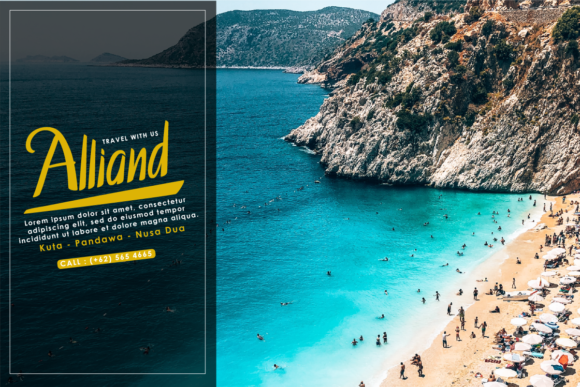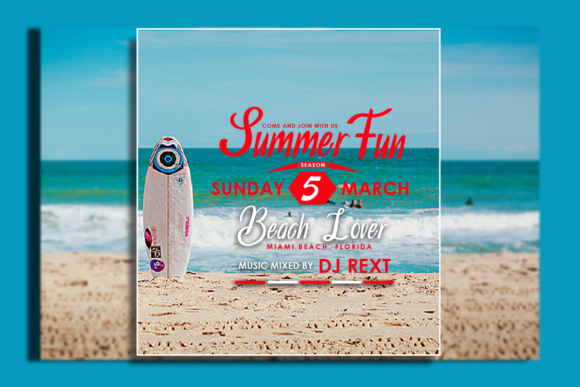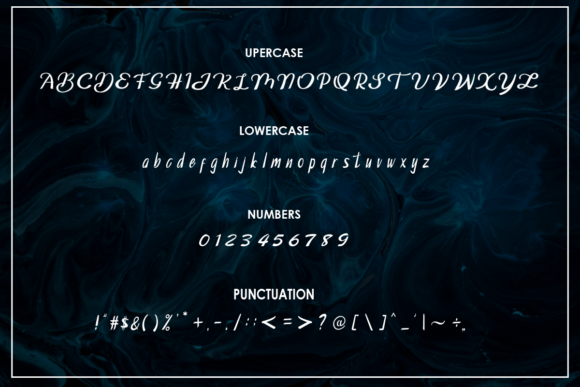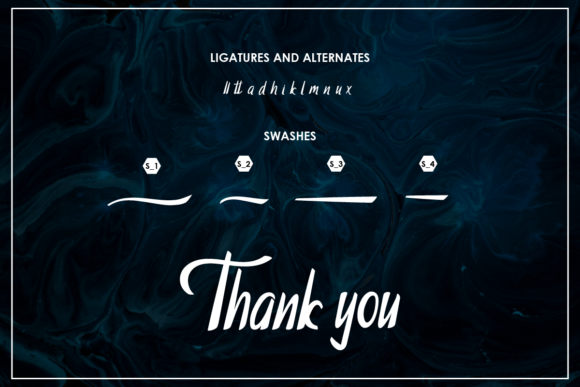
The Designer’s Delight: Galline Font
I still remember the time I was working on a wedding invitation project, and my client asked for a font that was both elegant and playful. I scoured the internet, tried countless fonts, but nothing seemed quite right. That was until I stumbled upon Galline Font. It was love at first sight! 💕
Galline is a soft, flowing, and trendy handwritten font that has become a staple in my design toolkit. It looks stunning on posters, wedding invitations, thank you cards, quotes, greeting cards, logos, and so much more. In this article, I’ll share my experience with Galline Font, its features, and how to make the most of it in your designs.
- ✨ Soft and flowing strokes that give it a personal touch
- 💃 Perfect for creative projects that require a touch of elegance and whimsy
- 🎉 Extensive character set, including glyphs and stylistic alternates
While Galline Font is an excellent choice for many projects, there are a few things to keep in mind:
- ⚠️ It may not be the best choice for very formal or corporate designs, as it has a more playful tone
- 🤔 Some users may find the font a bit too delicate for certain applications, such as large-scale posters or billboards
Galline Font was created with the intention of capturing the softness and elegance of handwritten scripts. Its designer drew inspiration from classic calligraphy and modern typography, resulting in a font that’s both trendy and timeless.
Q: What type of projects is Galline Font best suited for?
A: Galline Font is perfect for creative projects that require a touch of elegance and whimsy, such as wedding invitations, greeting cards, and posters.
Q: Is Galline Font available in different languages?
A: Galline Font may not have an extensive language support, but it does include a range of glyphs and stylistic alternates to help you create unique and creative text.